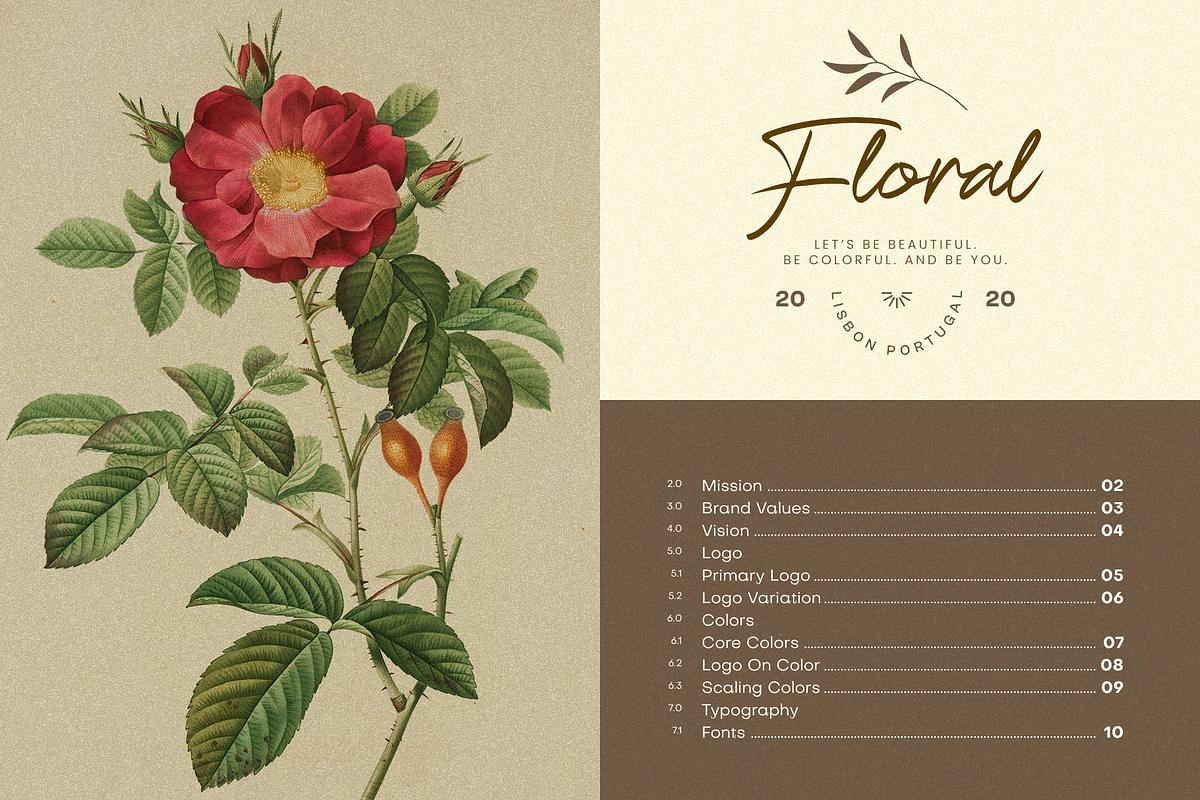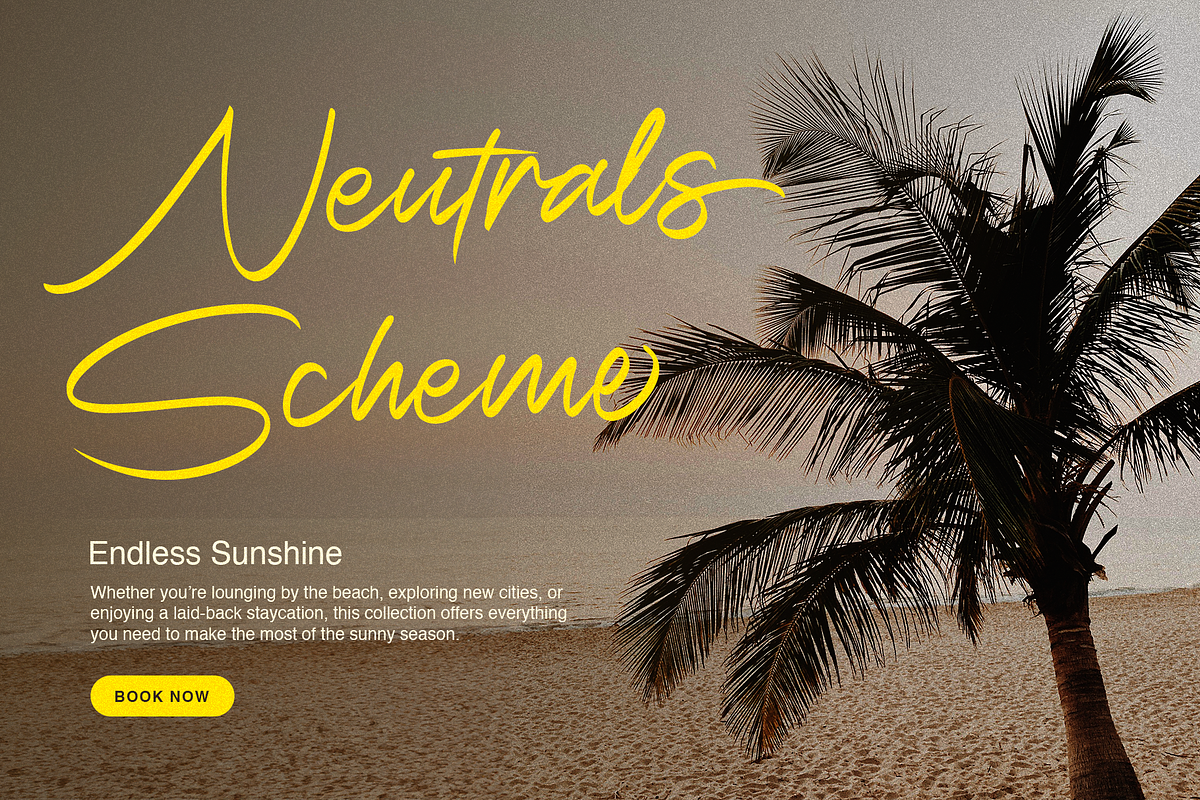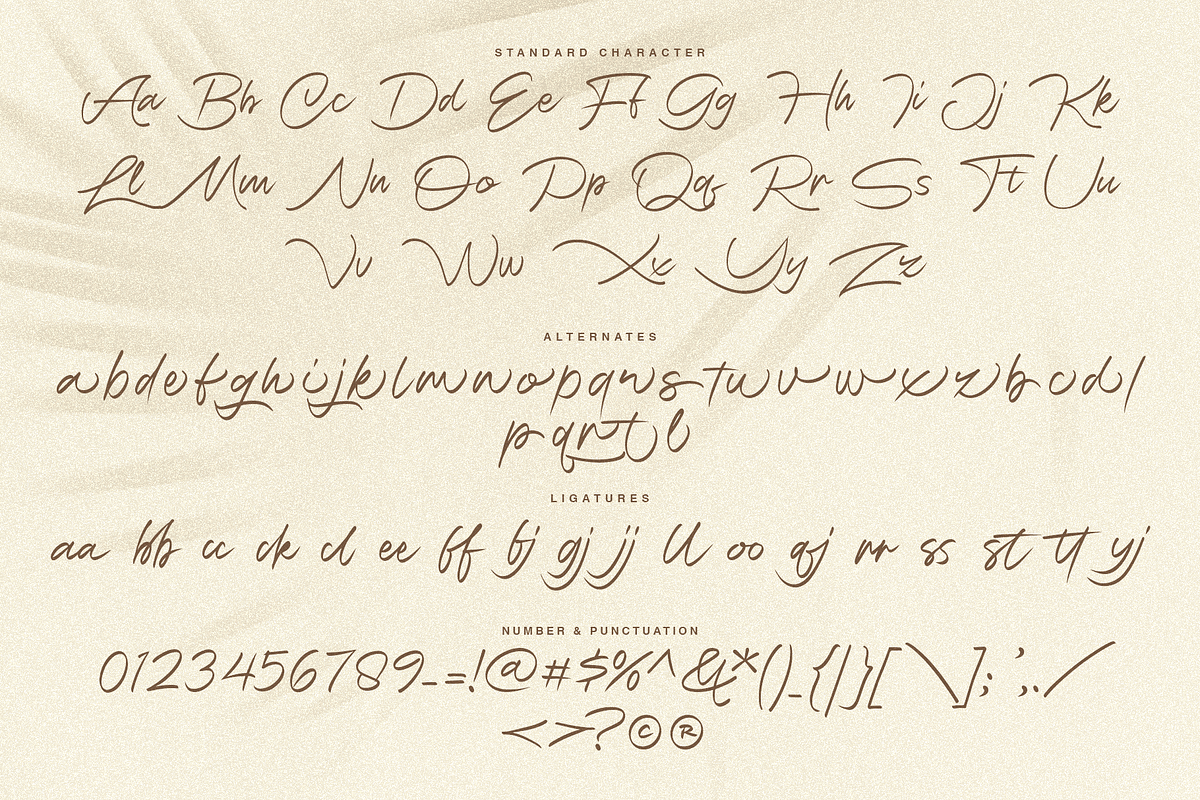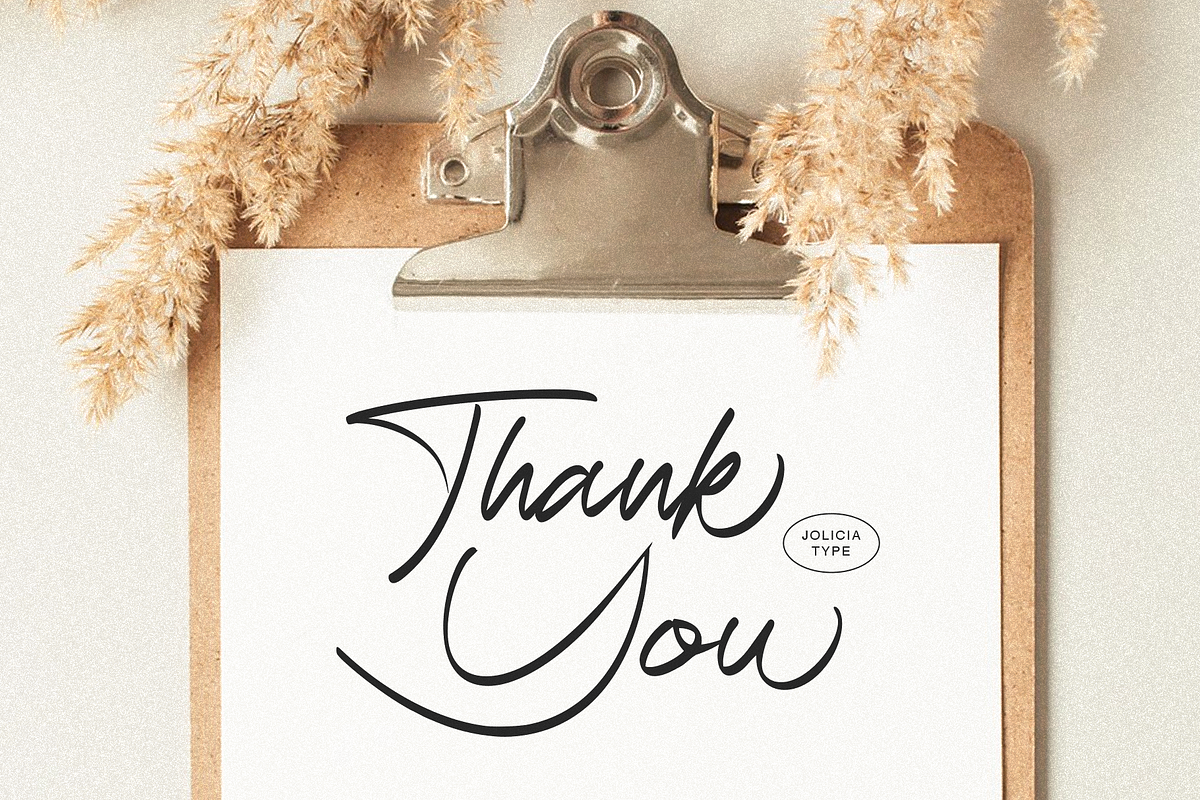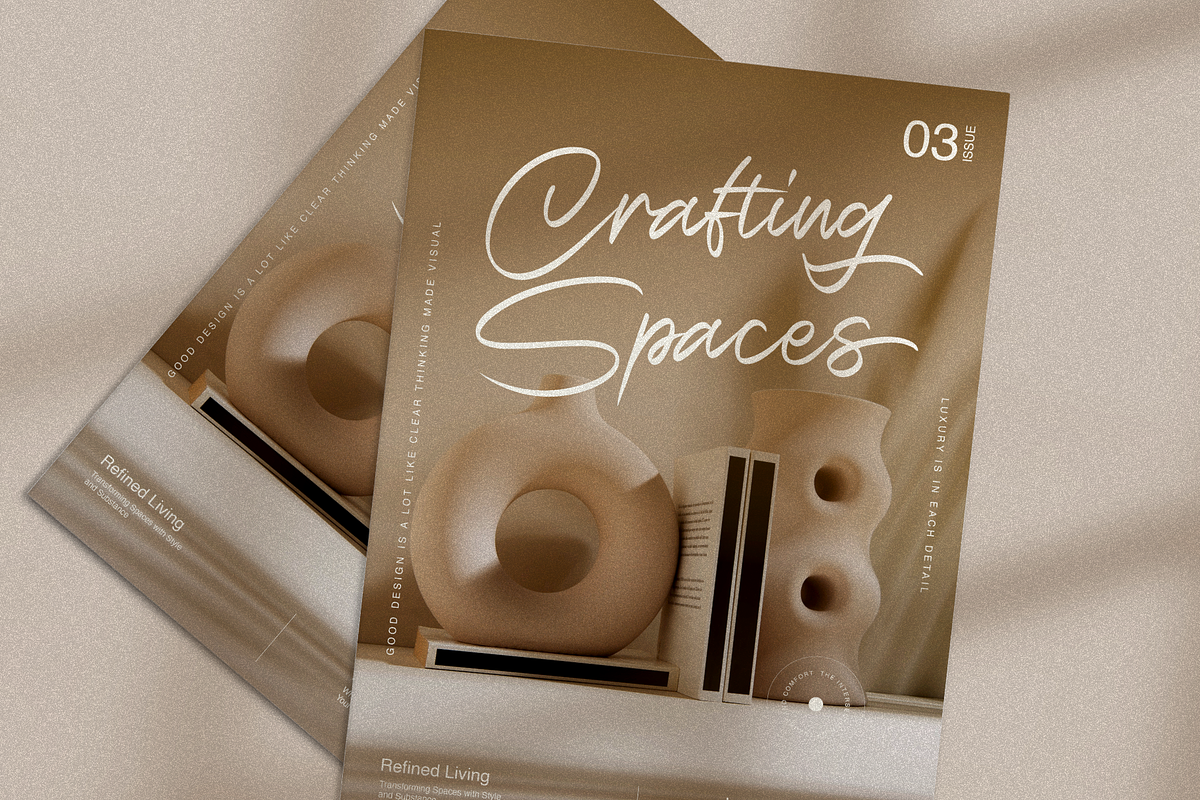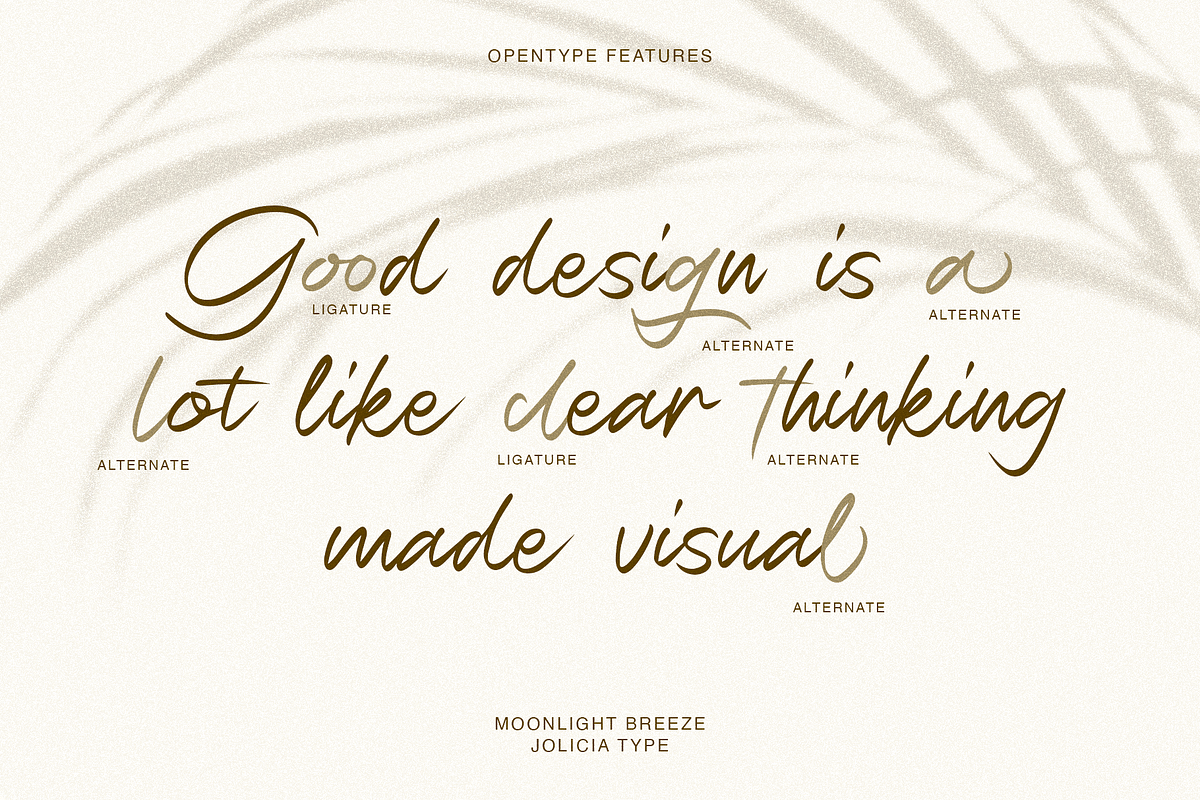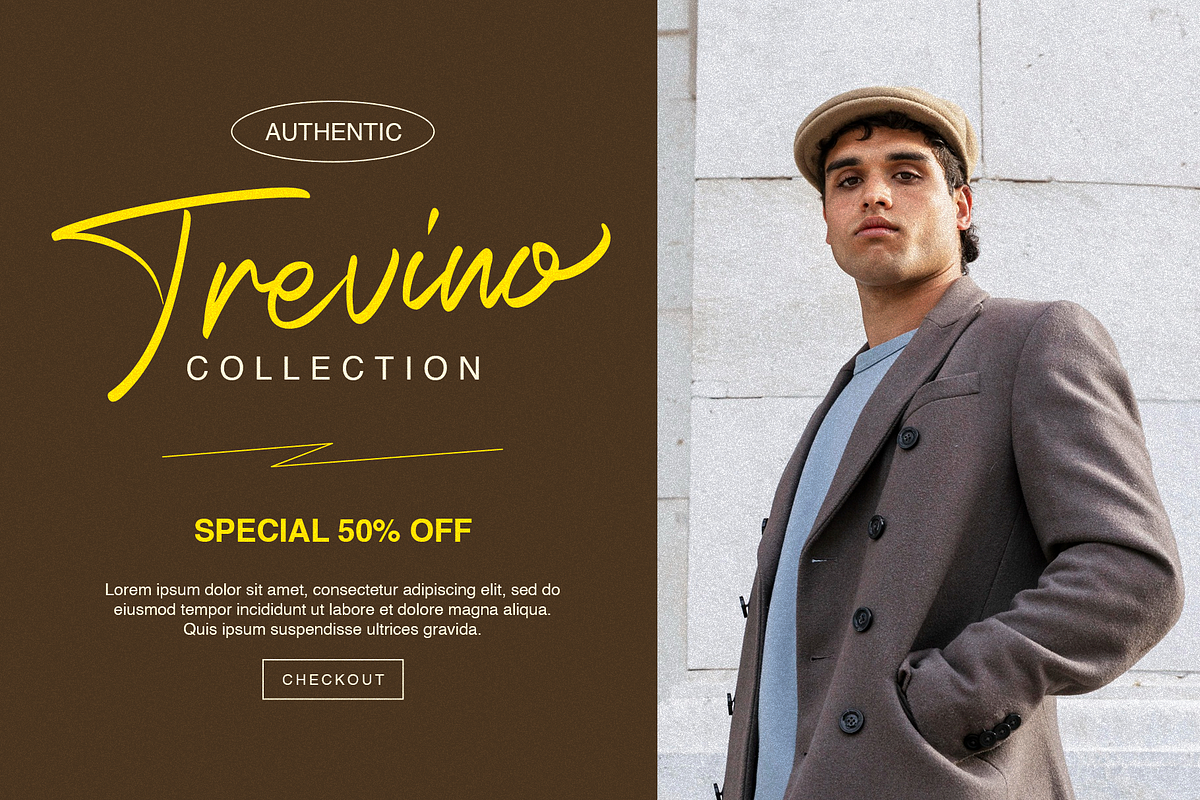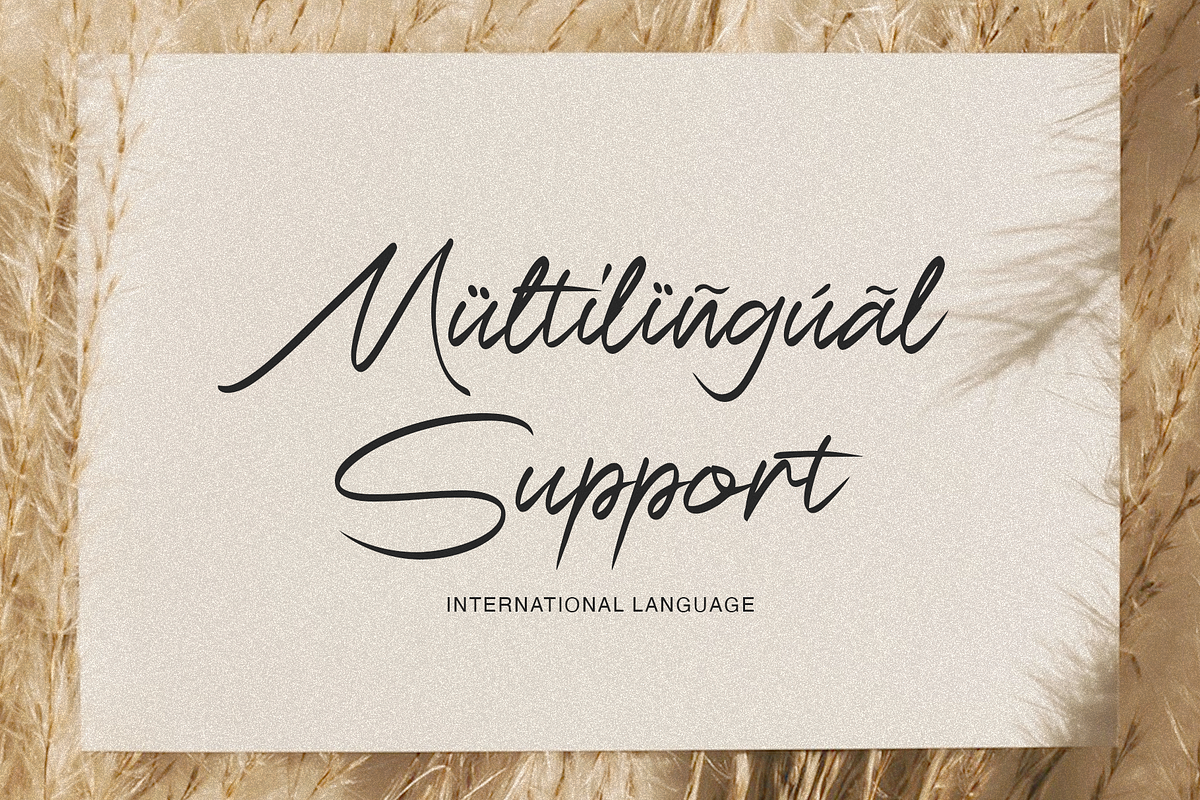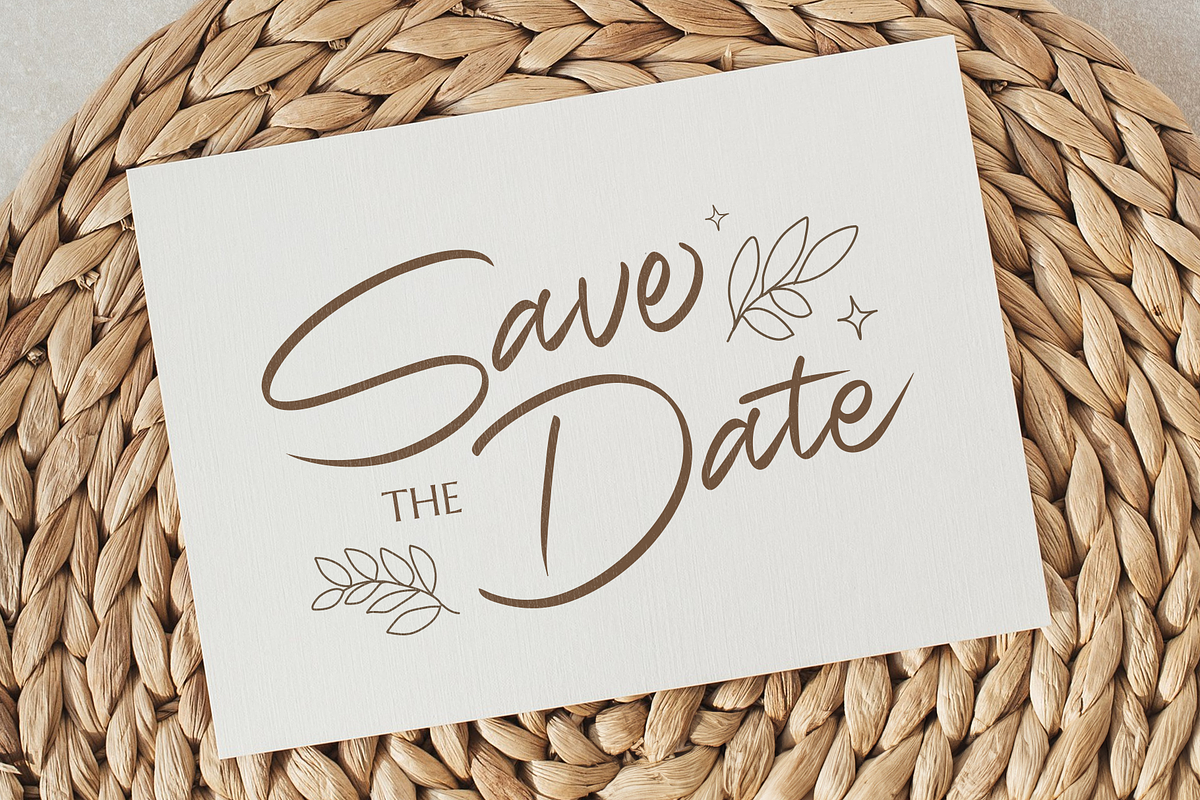
Moonlight Breeze | Handwritten font
Let your designs glow with the charm of Moonlight Breeze, a graceful handwritten script font inspired by the serenity of moonlit nights and the gentle sway of a summer breeze.
Every letter is crafted with a delicate touch, exuding elegance and warmth, perfect for adding a personal and artistic flair to your projects.